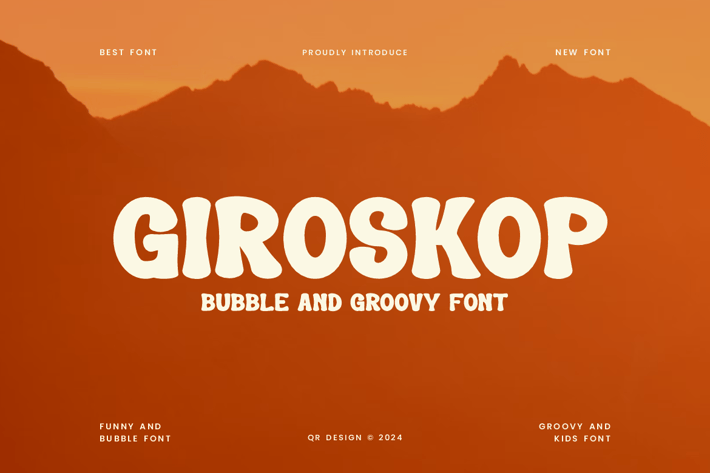
Giroskop - Bubble & Groovy Font
Giroskop Font is a bold and authentic display font.
The font is suitable for any branding project like poster, logo, kids, and many more.